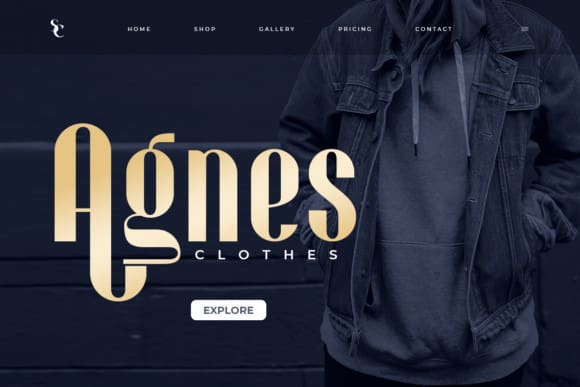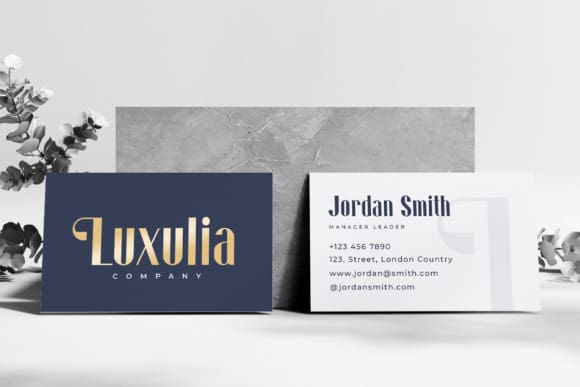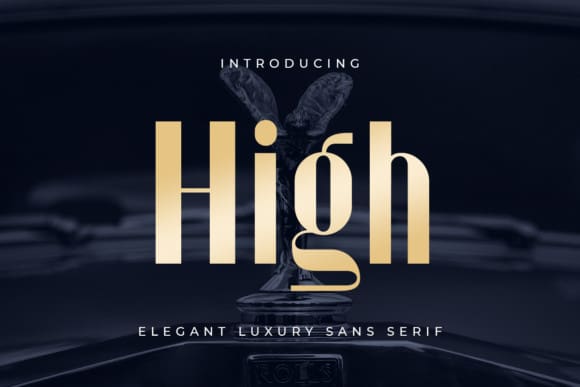
High Sans Font
High Sans Font, New Elegant Luxury Sans Serif that we created specially for elegant projects with extra ligature and alternates in unique shapes will be ready to add value to your brand. It is so nice to leverage designers or product owners who need solutions to make their designs look more elegant and luxurious. And especially for High font. We prepared any ligatures and any alternate characters to help you create unlimited variations for your creative needs.